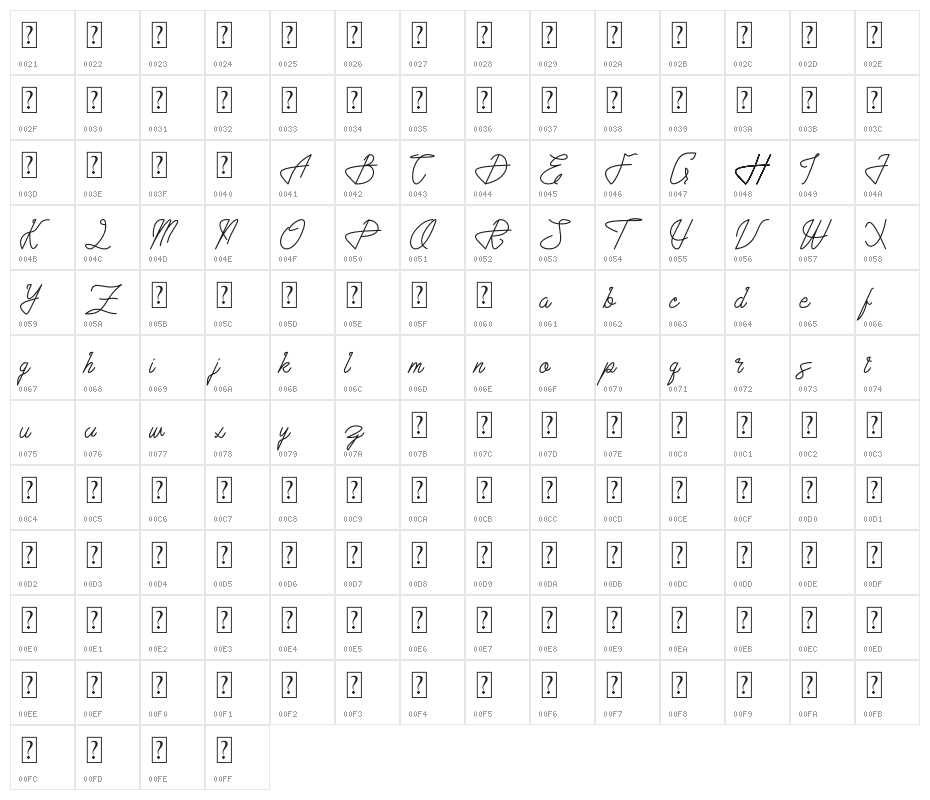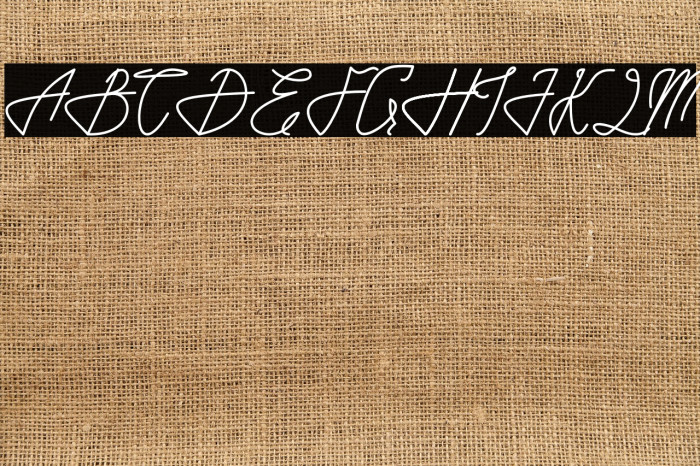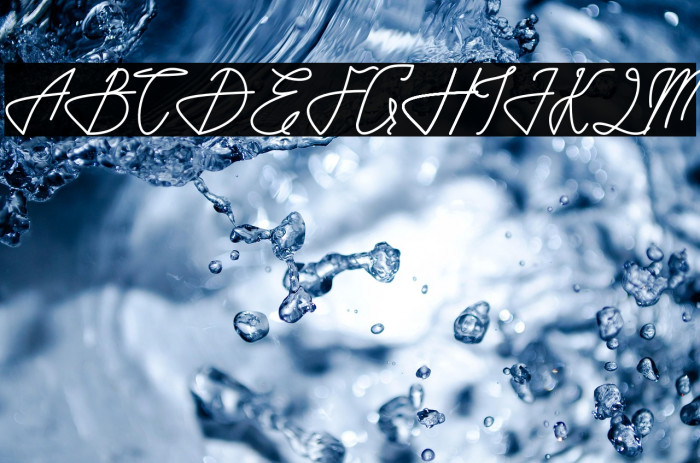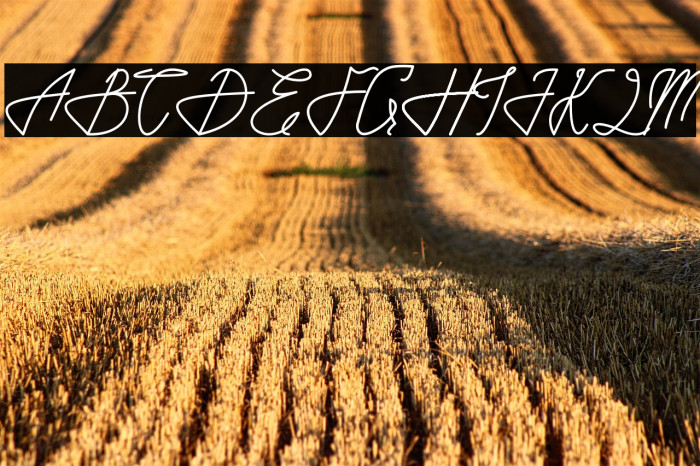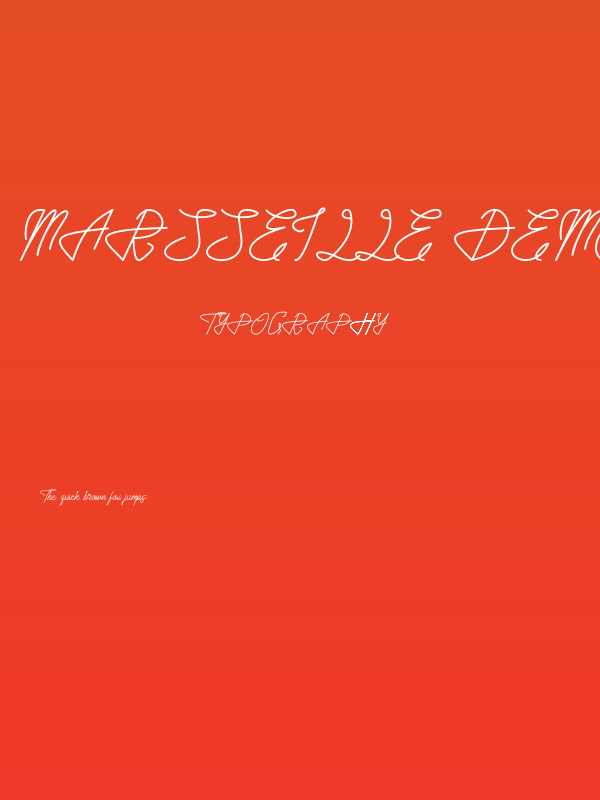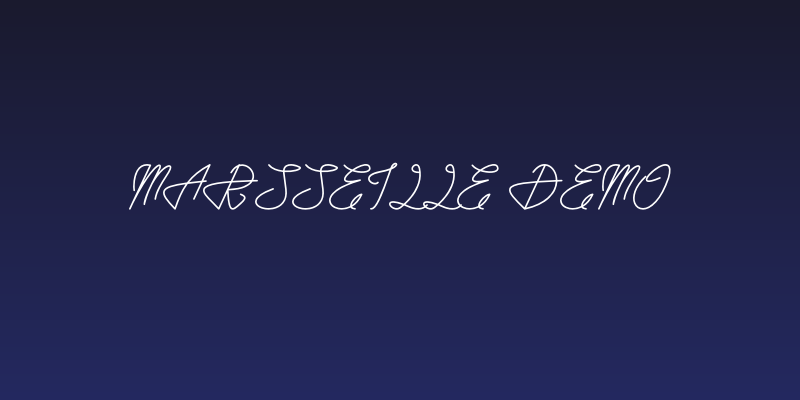
Marsseille Demo Font
Marsseille Demo Description
This elegant script font features a flowing, cursive style with a modern twist. The uppercase letters are characterized by their tall, slender forms and intricate loops, giving them a sophisticated appearance. The lowercase letters maintain a consistent flow, with smooth connections between each character, enhancing the font's readability. The overall design is both graceful and stylish, making it suitable for a variety of creative projects. The font's unique flair is evident in its distinctive letterforms, which combine traditional calligraphic elements with contemporary design aesthetics.